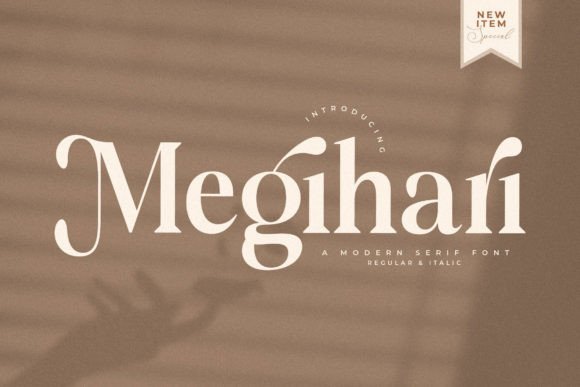
Step into the world of Megihari, a chic and refined serif font that combines elegance and modernity effortlessly. Picture this: a font that dances across your screen, its slender and graceful lines captivating your attention. Every curve, every stroke of Megihari exudes sophistication and luxury, making it the perfect choice for fashion and branding projects seeking an upscale look.
Megihari is not just another font; it's an experience. Its clean and minimalist design makes it versatile for a myriad of creative endeavors, from editorial layouts to wedding invitations. Its timeless and classic appeal adds a touch of refinement to any project, transforming your designs into masterpieces.
Fashion enthusiasts, imagine your designs adorned with Megihari's elegant charm. T-shirts, hoodies, and caps come alive with a touch of luxury, captivating the hearts of fashion-forward individuals. With Megihari, your designs speak volumes, expressing a sophisticated and upscale aesthetic that sets you apart.
Brand designers, envision your logos and branding elements infused with Megihari's timeless beauty. Logos radiate elegance, etching themselves into the minds of consumers. Branding materials, from business cards to brochures, exude professionalism and luxury, leaving a lasting impression on your clientele. Megihari elevates your brand, making it stand tall among the competition.
Editorial designers, picture Megihari gracing the pages of your magazines and publications, adding a touch of sophistication to every word. Its clean and minimalist design enhances readability, allowing readers to immerse themselves in the content effortlessly. Megihari transforms your editorial projects into captivating experiences, leaving readers captivated and eager for more.
Wedding invitation designers, imagine Megihari bringing a touch of romance and elegance to the most special day of your clients' lives. Invitations adorned with Megihari's graceful lines exude timeless beauty, setting the tone for an unforgettable celebration. From save-the-date cards to thank-you notes, Megihari weaves a thread of sophistication throughout the wedding journey.
Megihari is more than just a font; it's a muse, inspiring creativity and transforming designs into works of art. Its versatility knows no bounds, making it the perfect companion for fashionistas, brand designers, editorial designers, and wedding invitation designers alike. Let Megihari elevate your designs to new heights of elegance and sophistication. Embrace the beauty of Megihari and unlock a world of creative possibilities today.